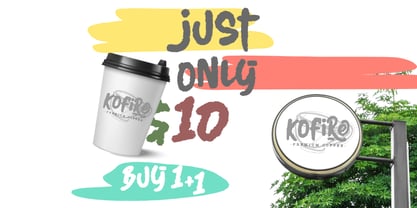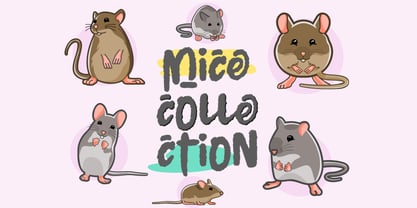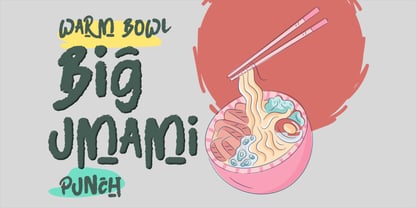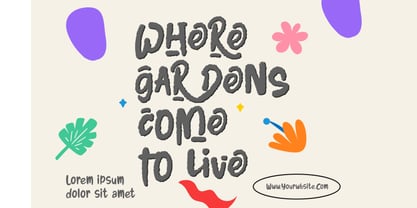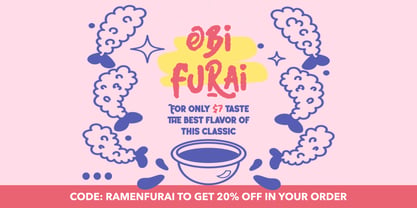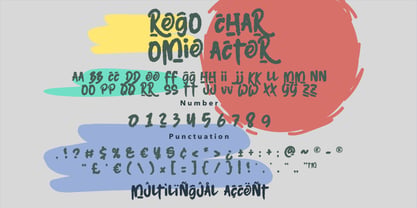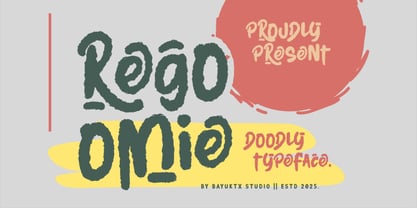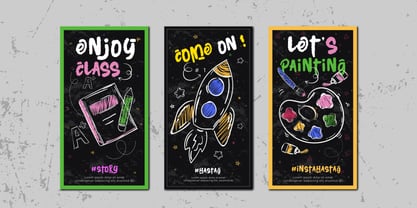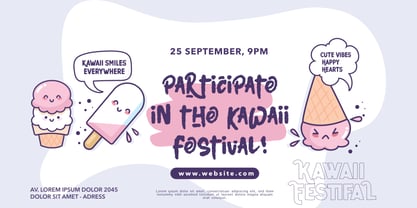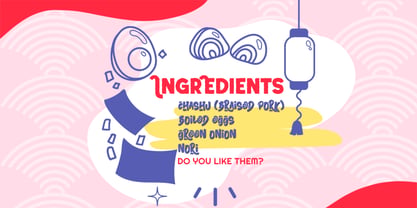
Regoomie
by Bayuktx
The Regoomie Font Family was designed by Bayu Aji Fais Mursid and published by Bayuktx. Regoomie contains 1 styles. More about this family
Regoomie – Doodly Handwritten Display Font Regoomie Doodly Typeface is a playful hand-drawn font inspired by spontaneous sketches, chalky strokes, and casual doodle lettering. With its bold brush texture, imperfect curves, and expressive shapes, this typeface delivers a fun, friendly, and creative personality that instantly feels handmade and authentic. Designed to capture the charm of freehand typography, Regoomie offers a relaxed yet bold appearance with organic letterforms and rough edges. Each character feels lively and artistic, making the font perfect for designs that aim to look natural, joyful, and full of character. Whether used for digital or print projects, Regoomie stands out in branding, posters, packaging, and creative layouts that require a doodly, sketch-inspired aesthetic. Key Features : * Uppercase & Lowercase * Numerals & Punctuation * Multilingual Support * PUA Encoded & OpenType Features * Hand-Drawn Doodly Texture * Bold & Expressive Letterforms Suitable For : * Kids & Playful Branding * Handmade & Creative Logos * Social Media Graphics * Posters, Headlines & Flyers * Packaging & Product Labels * Cafe, Art & Creative Projects * Fun Quotes & Illustrative Designs With Regoomie – Doodly Handwritten Display Font, your designs come alive with playful energy, artistic freedom, and a charming handmade vibe — perfect for creative projects that want to feel fun, warm, and full of personality.
Designers: Bayu Aji Fais Mursid
Foundry: Bayuktx